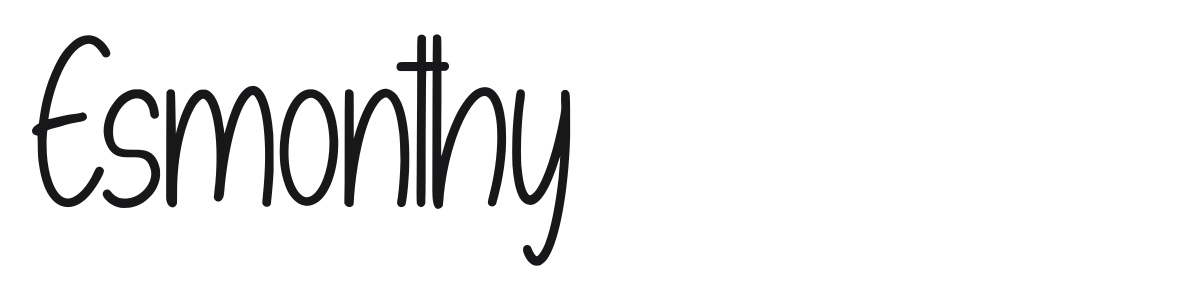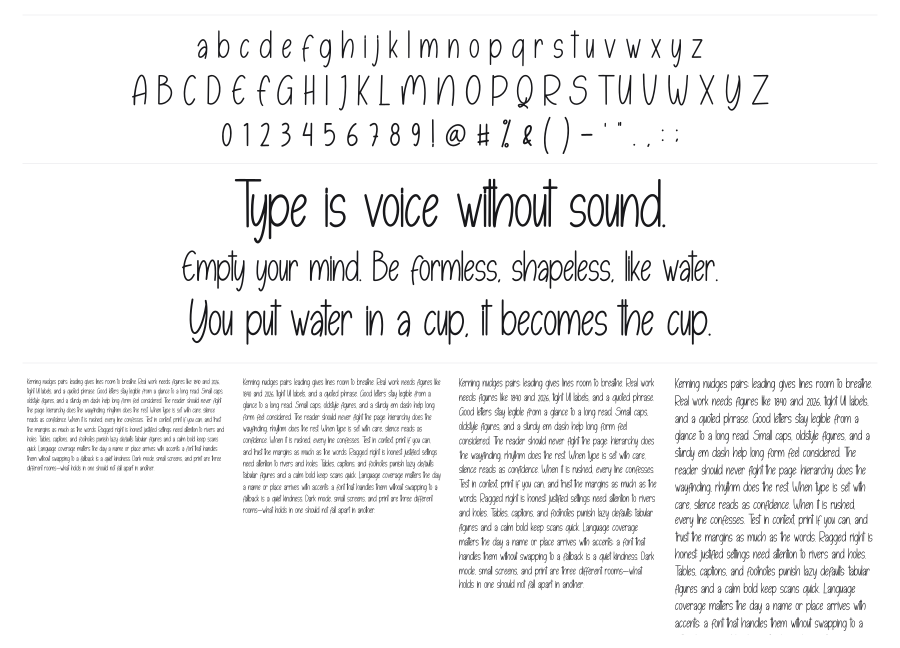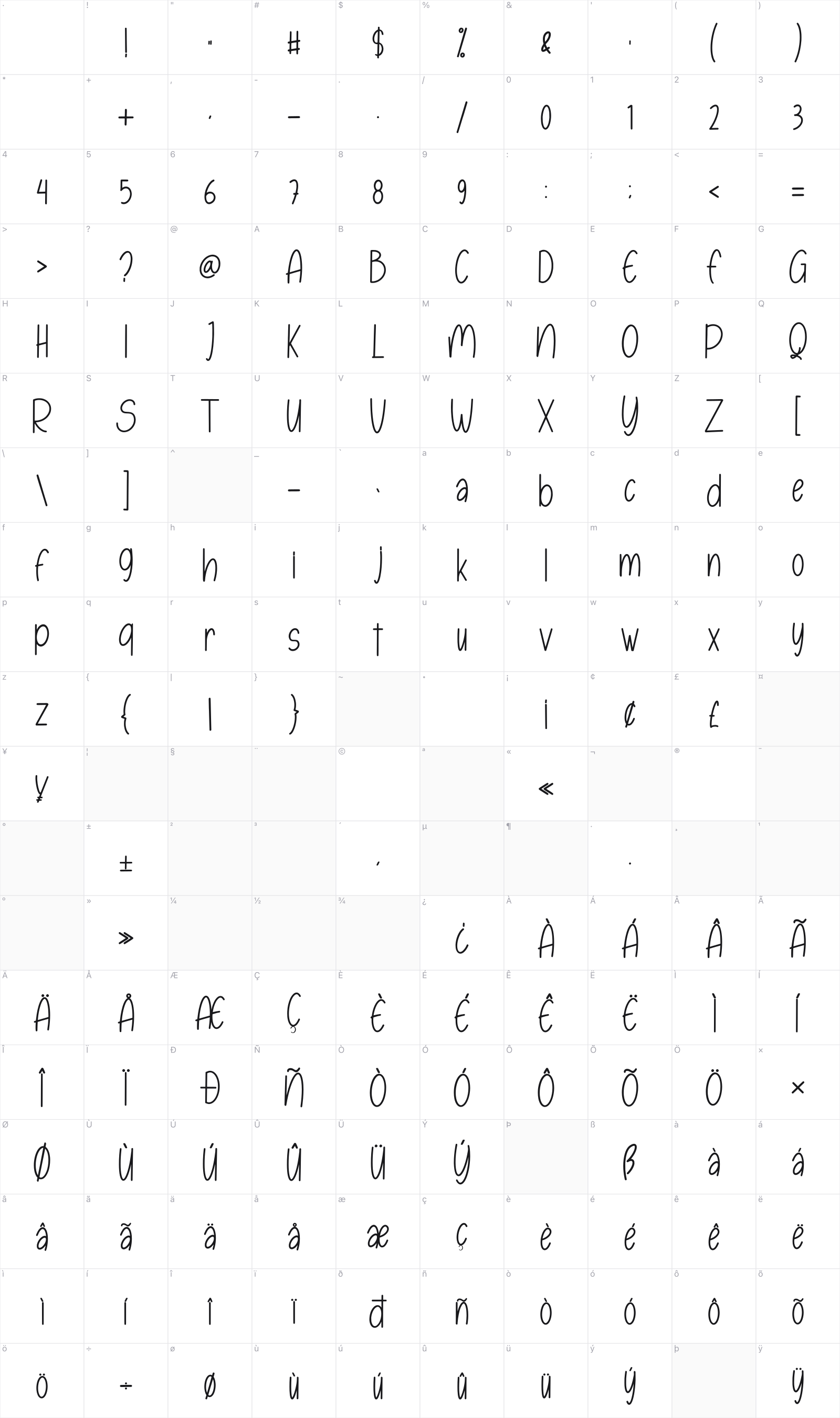
Esmonthy
Esmonthy is a casual handwritten sans with tall, narrow proportions and a clean monoline stroke. Its natural irregularity and rounded terminals give it the feel of quick, confident handwriting rather than a formal script. Strong for logos, packaging, and anywhere a human touch is needed without going full calligraphic.